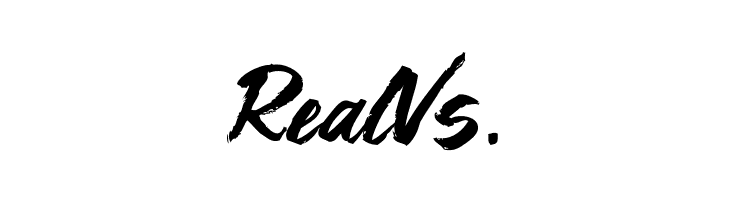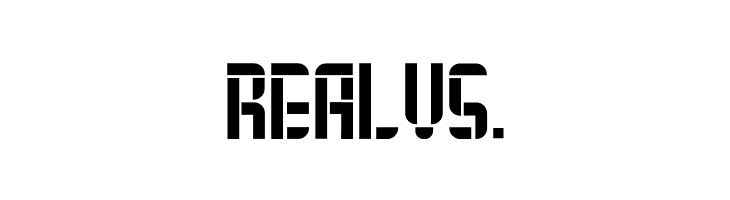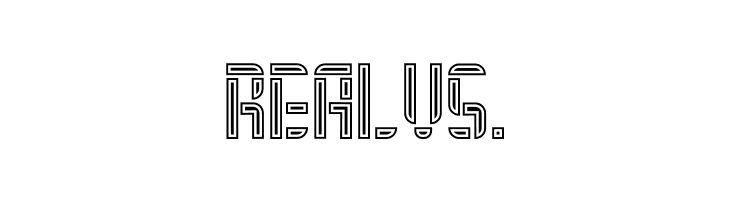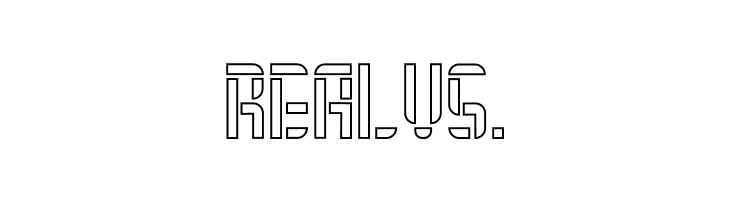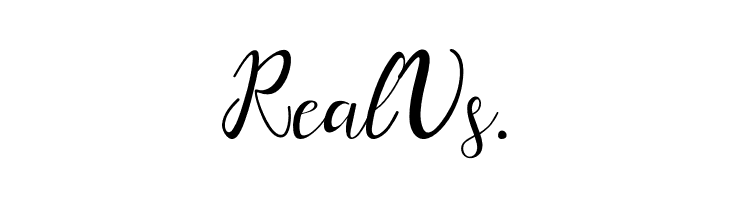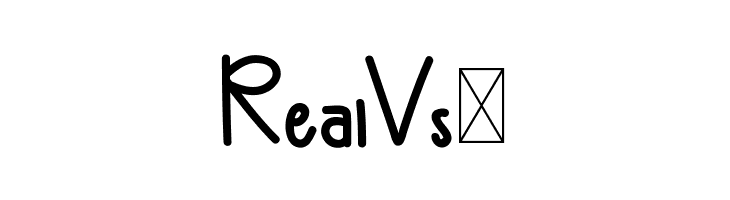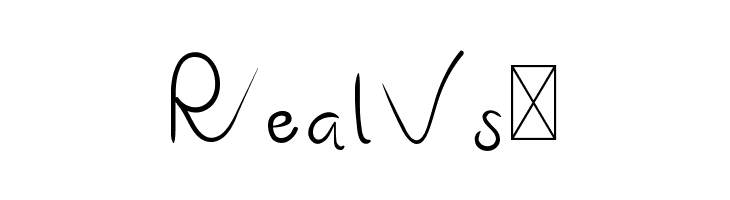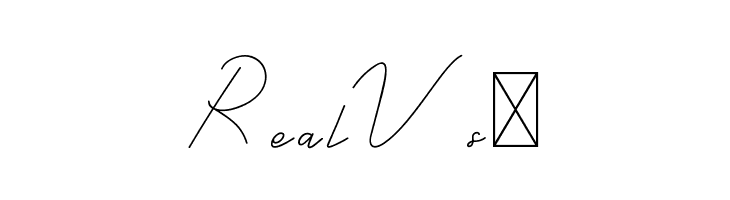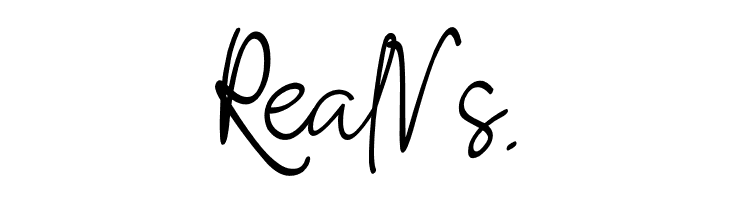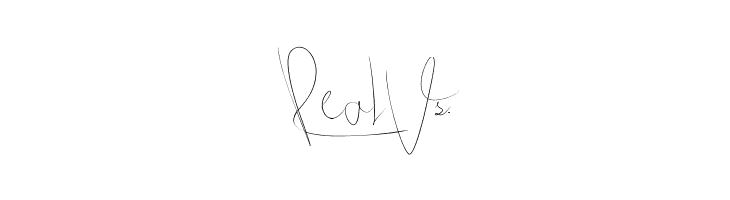
A modern, extra-light font with a backslant and wide letterforms.
A sleek, modern italic font with wide spacing and a light, airy appearance.
A bold, modern font with thick strokes and tight spacing, perfect for impactful designs.
A bold, backslanted font with a strong, modern appearance.
A bold, italic font with a dynamic and modern style.
A sleek, modern font with clean lines and a minimalist aesthetic.
A modern, backslanted font with thin, elongated characters and a sleek design.
A sleek, modern, and italicized font with thin strokes and a sophisticated style.
A geometric, outlined font with a futuristic and modern aesthetic.
A geometric, outlined font with a futuristic and mechanical style.
A bold, geometric stencil font with a modern, industrial aesthetic.
A bold, gothic font with sharp, angular lines and dramatic serifs.
A flowing cursive font with elegant loops and a handwritten style.
An elegant script font with flowing, connected strokes and ornate flourishes.
A playful and elegant script font with flowing, cursive letters and varying stroke widths.
A graceful, flowing script font with a modern and elegant style.
A bold, expressive script font with flowing, cursive letters.
A playful and whimsical handwriting font with flowing, cursive-like strokes.
A playful, handwritten-style font with a casual and modern look.
A sleek, modern font with elongated, condensed characters.
A bold, flowing script font with a handwritten, artistic style.
A bold, italic script font with flowing, expressive curves.
A delicate and elegant script font with flowing, cursive letterforms.
A whimsical, hand-drawn font with thin, flowing lines and artistic flair.
A casual, handwritten font with a playful and personal touch.
A dynamic and expressive script font with fluid, energetic strokes.
A bold, gothic-style font with sharp, angular lines and a medieval influence.
A playful, handwritten font with elongated, slanted characters and medium contrast.
A bold, dynamic font with sharp, angular edges and a tribal or futuristic flair.
A bold, dynamic font with playful, rounded shapes and artistic flair.
A bold, italicized font with dynamic curves and sharp angles.
A bold, italic font with sharp, angular edges and high contrast strokes.
A bold, high-contrast font with sharp angles and smooth curves, offering a dynamic and modern style.
A bold, dynamic brush script font with expressive strokes.
A bold, brush-style script font with dynamic, textured strokes.